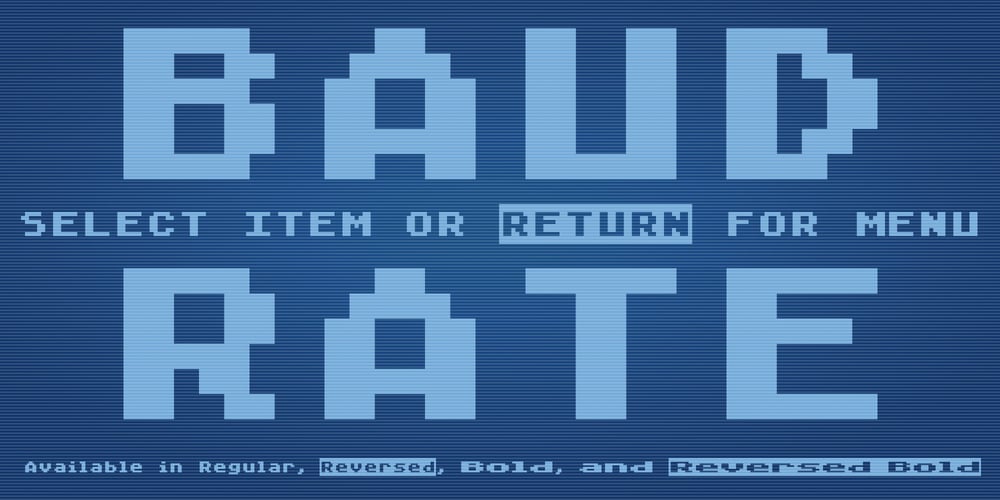
Baud Rate Font Family was designed by Sawyer Hume and published by Fontasmic. Baud Rate contains 4 styles and family package options. Purely for the love of the old Atari games, I’ve created this family as a tribute to old school pixel fonts. This family includes both the Regular and Bold weights you would naturally see in old games, along with Reversed version you would see when something was highlighted. But unlike those old games, these fonts have an extensive character set with internationally accented glyphs NOT included in those games. To maintain the height of the characters, all accented Capitals are changed to smallcaps to compensate.I had a lot of fun making these fonts from old reference sources as well as creating the graphics to accompany them – and I hope that you’ll enjoy them.